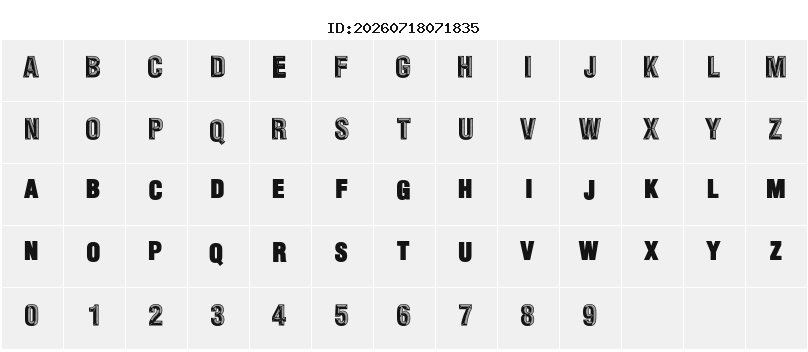
• Font Name: CheapSign
• Full Font Name: CheapSign
• Copyright: CheapSign by J.F.Y.Daniel Gauthier - GautFonts
About CheapSign.ttf
CheapSign.ttf is a modern, elegant sans-serif font designed for ultimate readability and visual harmony. Perfect for branding, headlines, web design, and print materials.